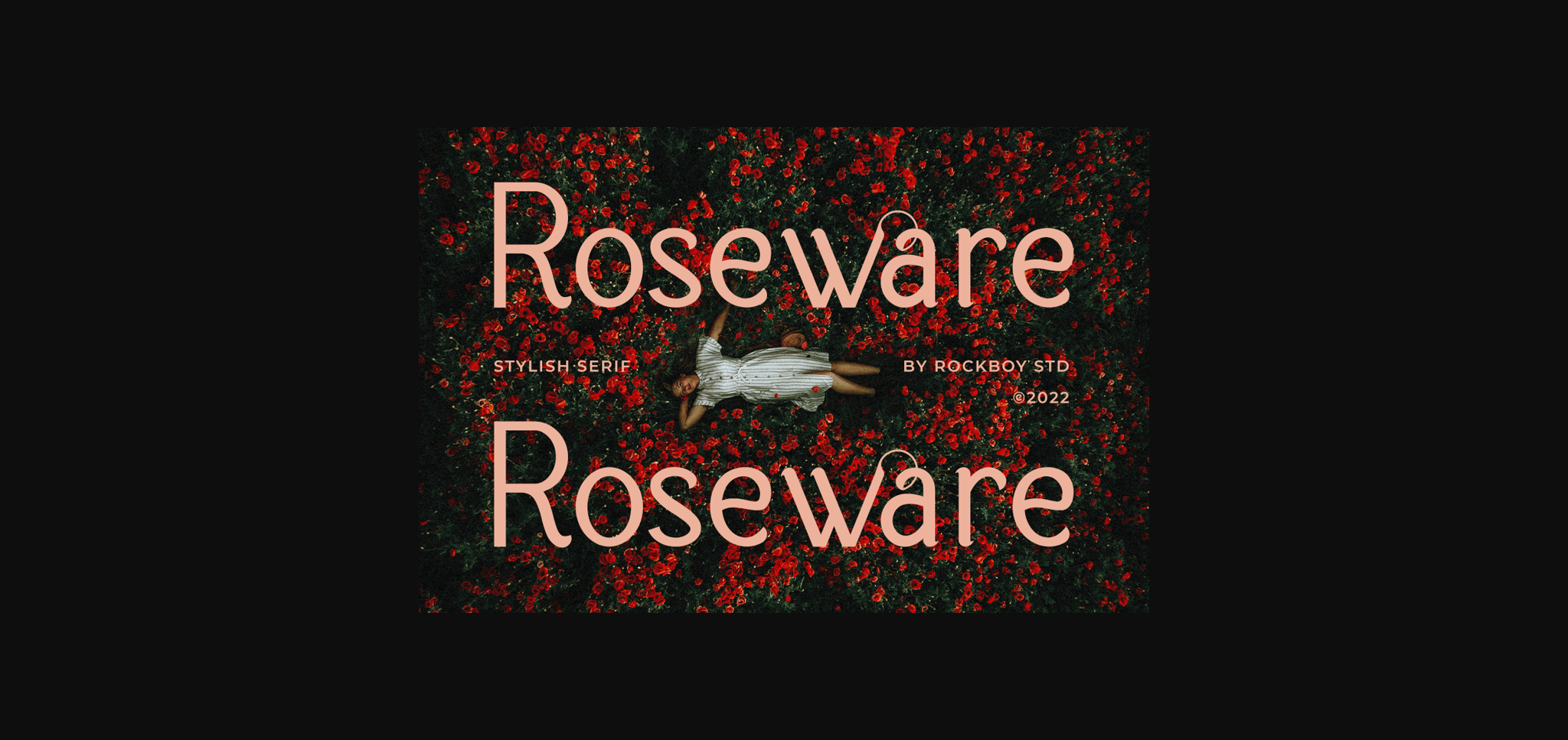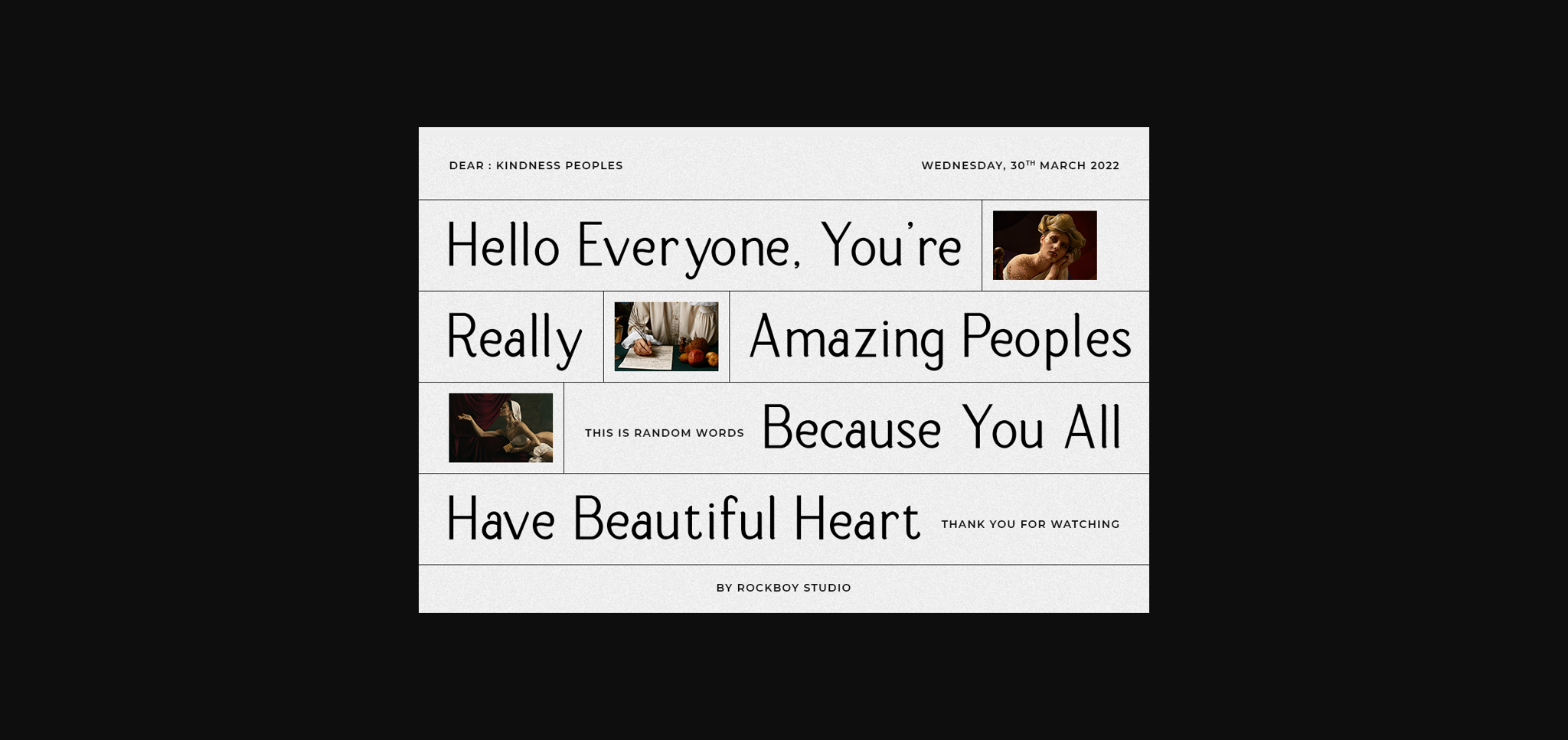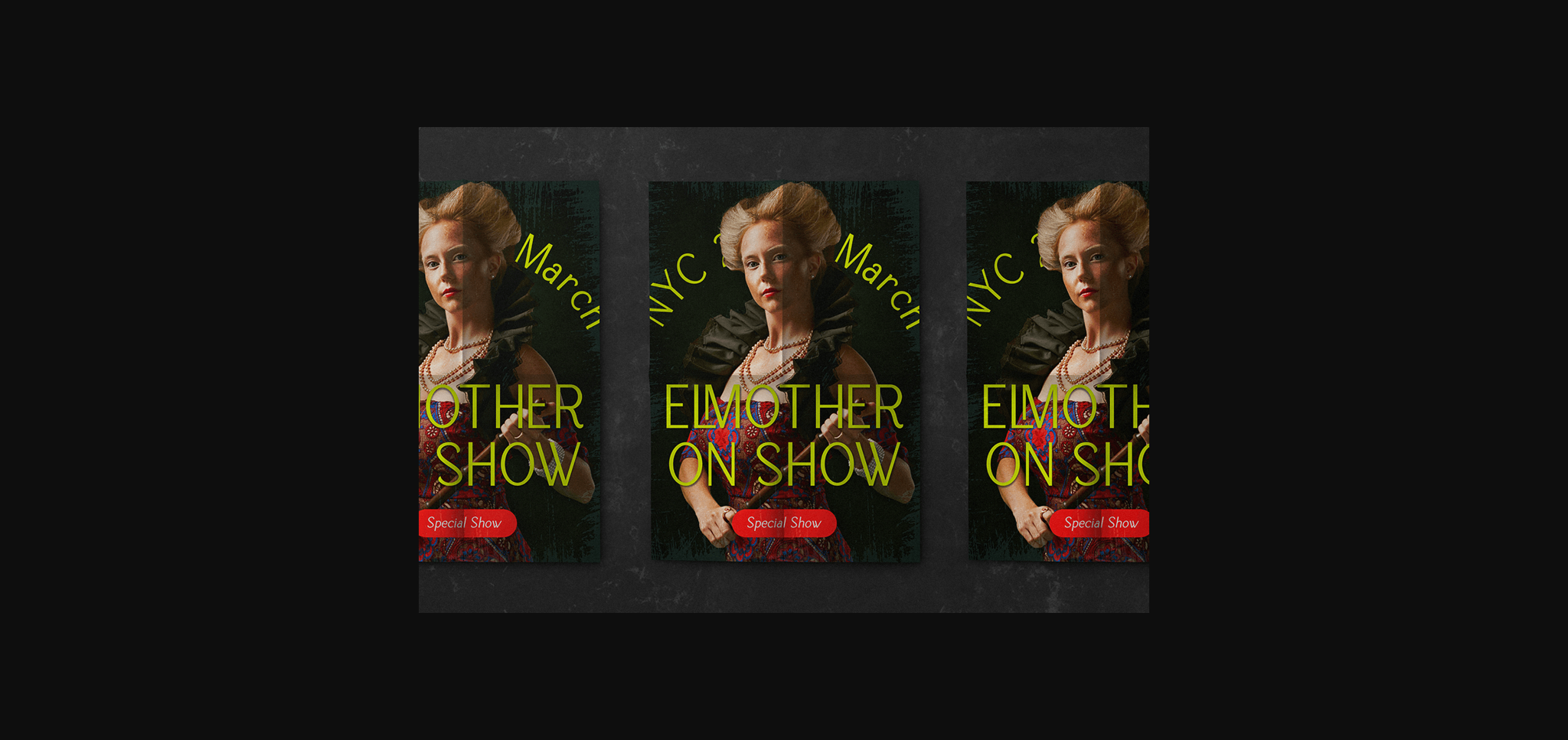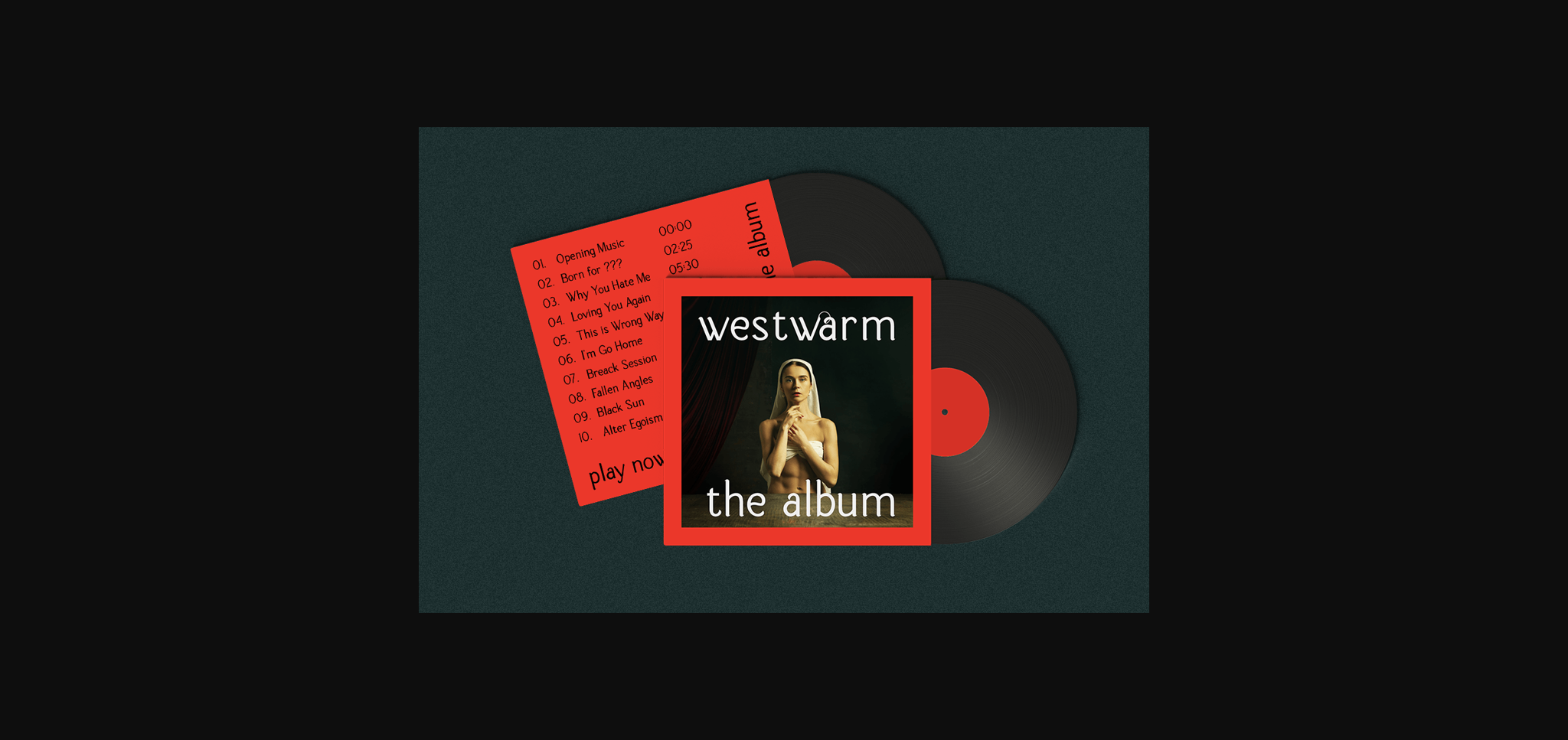
About Roseware Font
Roseware is an elegant, thin lettered, and distinct sans-serif font. Suitable for a wide variety of designs due to its neat and clean style, this font has the potential to become your favorite go-to font, no matter the occasion!